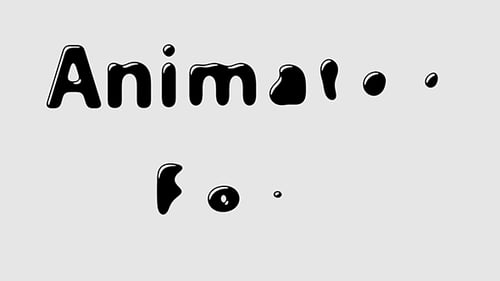
Glossy Liquid Black Alphabet Numbers and Symbols Animated
This animated collection presents individual uppercase and lowercase letters, numbers, and common symbols with a unique glossy, liquid-like appearance. Each character animates in with a smooth, fluid morphing effect and then animates out, creating a dynamic visual that resembles black ink or oil. The high-contrast black characters stand out, offering a versatile element for text reveals or playful titling. Designed with an alpha channel, these animations seamlessly integrate over any background, making them ideal for adding a modern, sleek, and engaging typographic element to various video projects, from social media content to presentations and creative motion design.